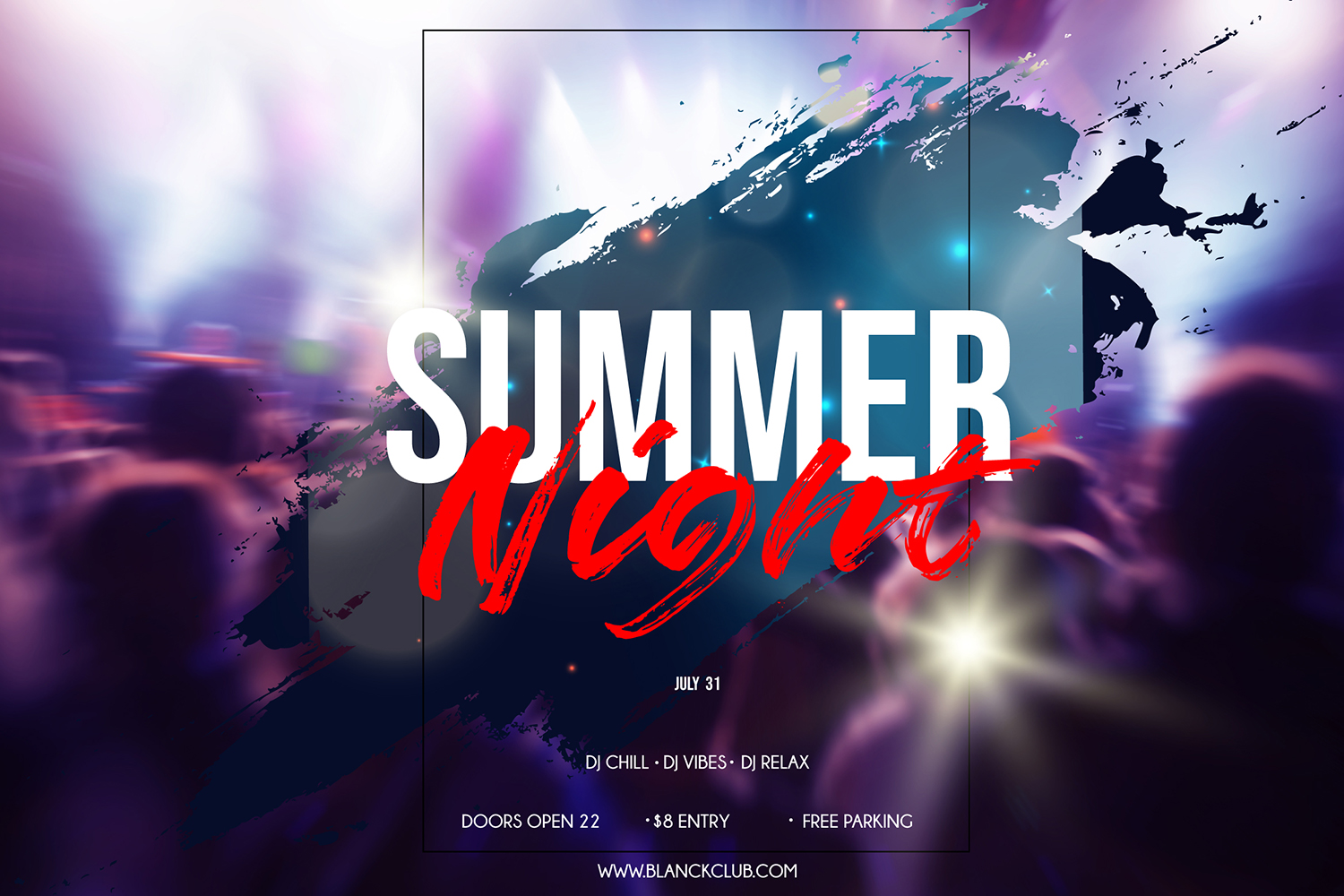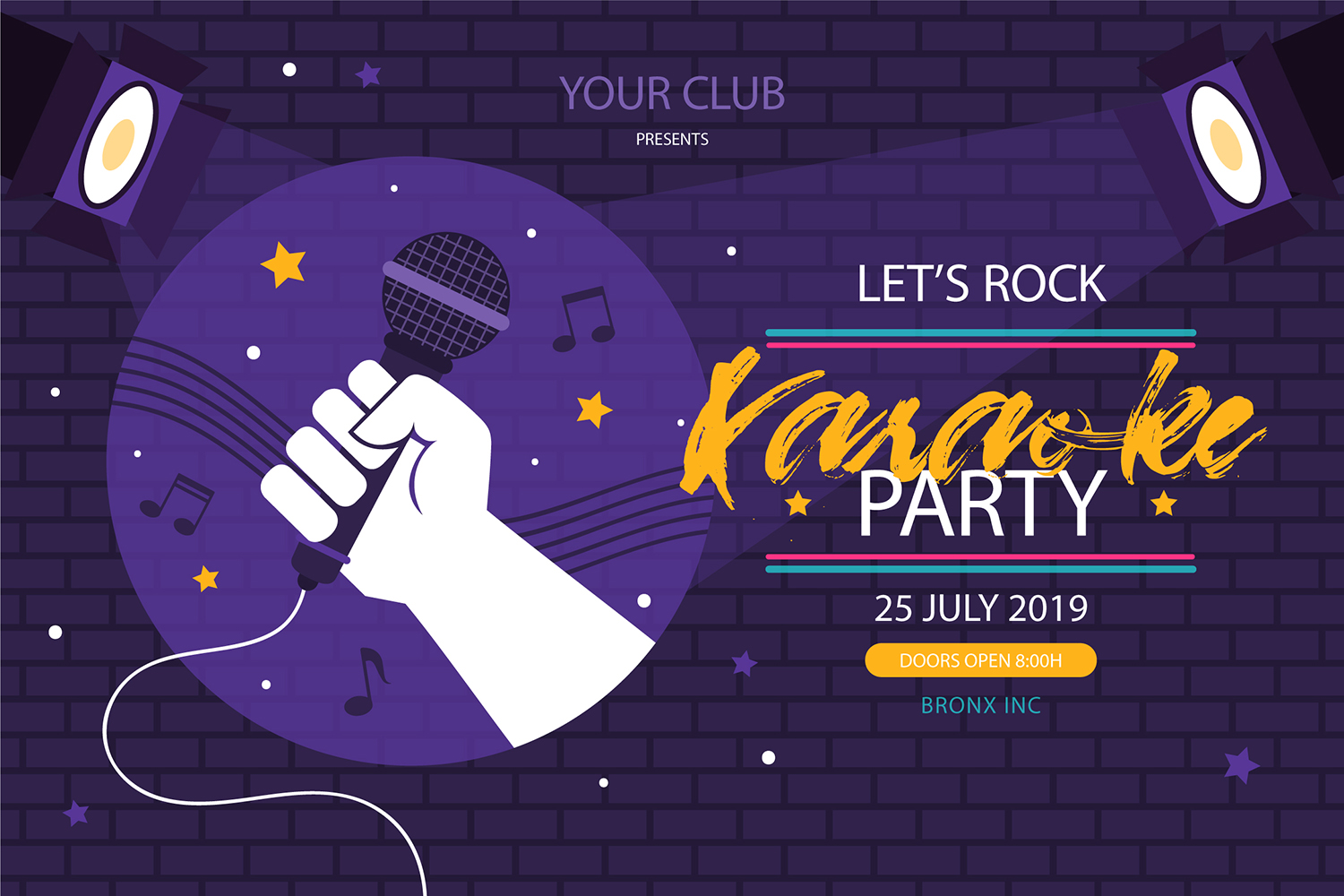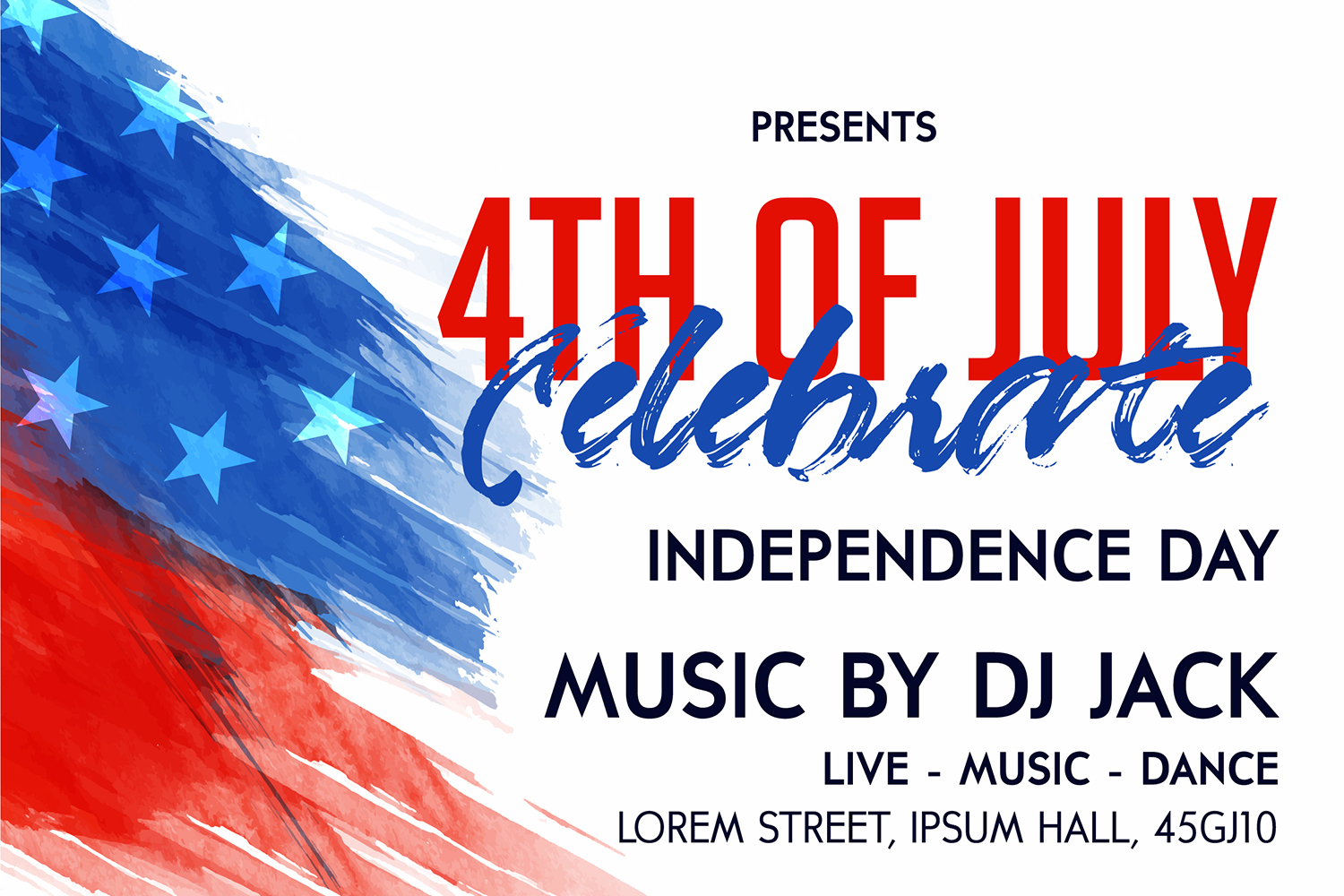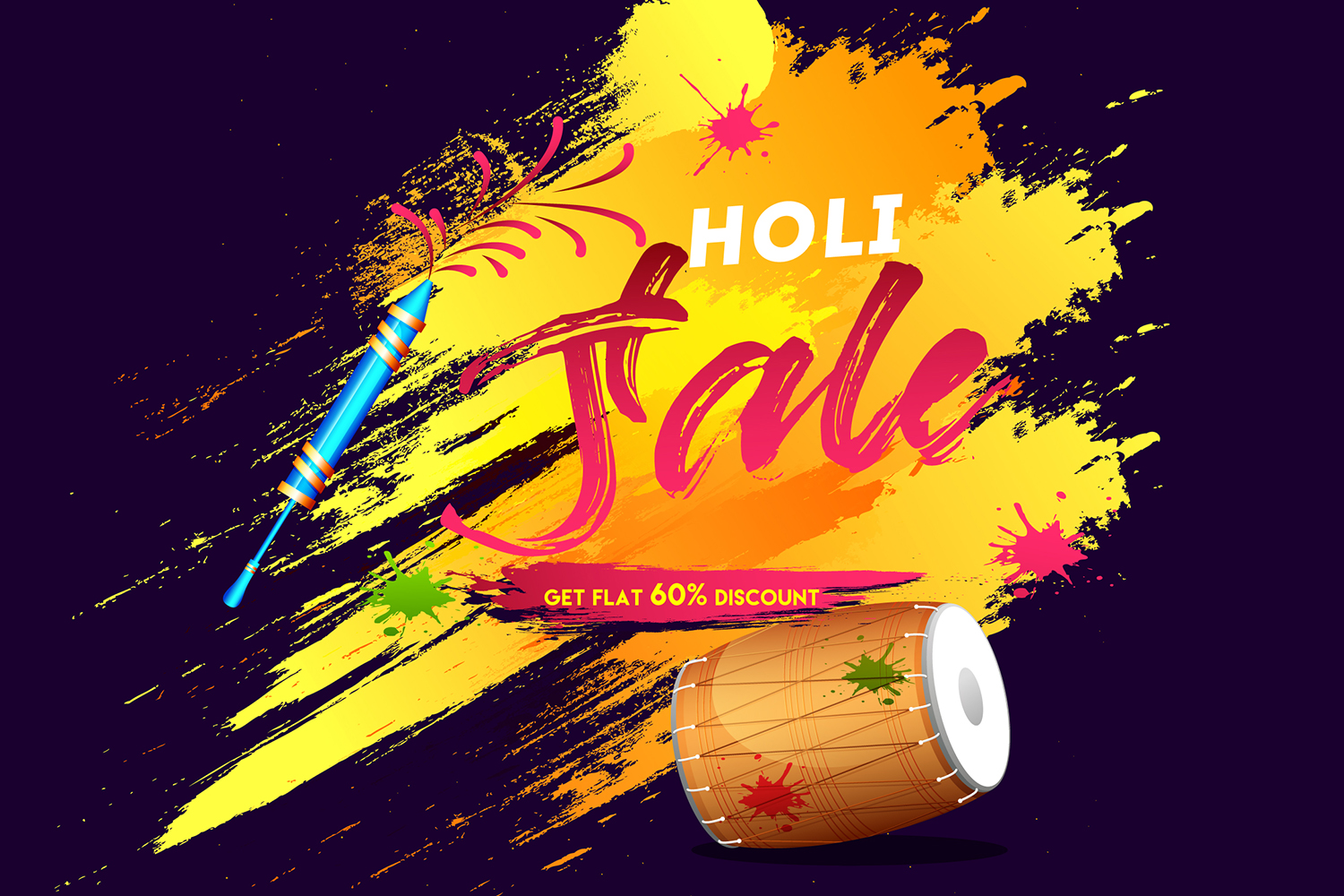
Strade Eqrem | Freehand Brush Cursive Font
**Strade Eqrem | Freehand Brush Script** with a calligraphy style, So beautiful on invitation like greeting cards, branding materials, business cards, quotes, posters, and more!
* Hundred of glyphs
* Alternates and Ligatures
* Fonts include **Multilingual Support**